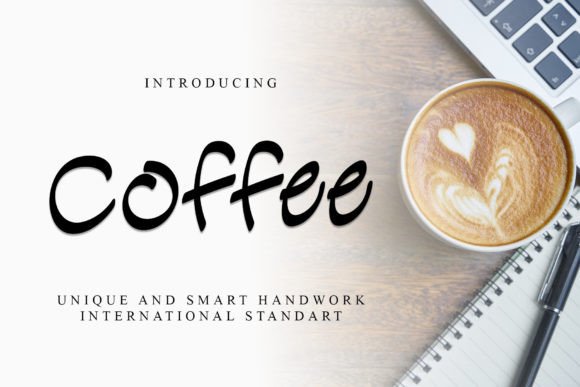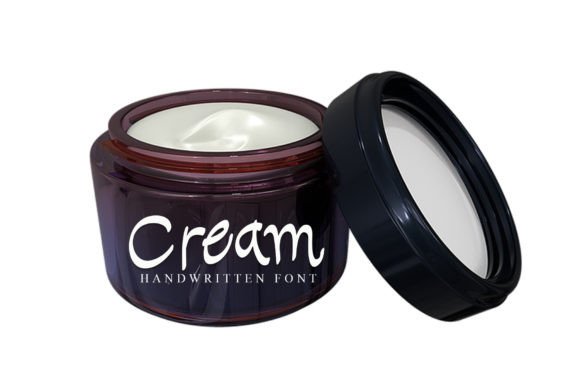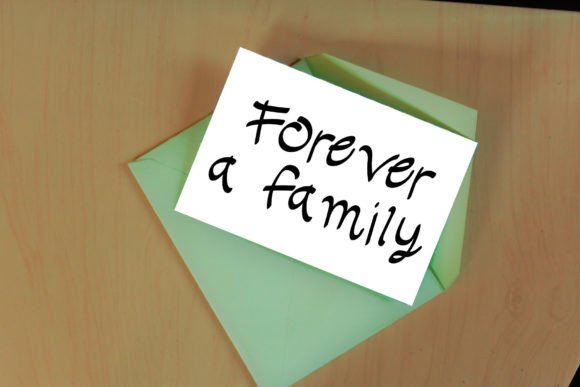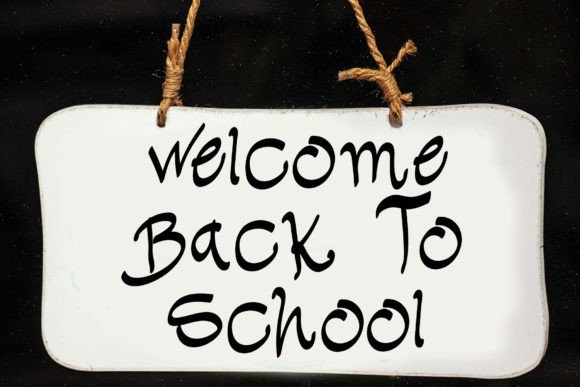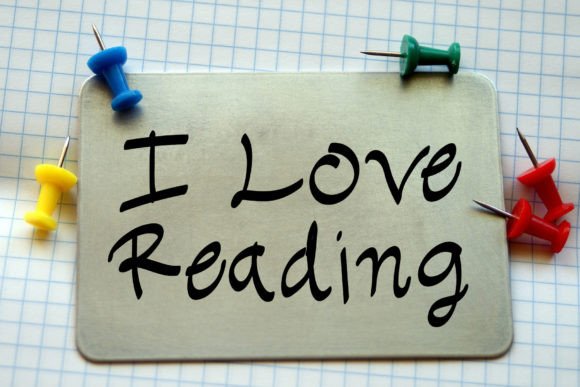
Coffee Font
Coffee: An Elegant Handcrafted Script Font with a Natural Touch
Looking to add warmth and charm to your next design? Coffee is an elegant handcrafted script font designed to bring personality and sophistication to any creative project. With its graceful curves and realistic handwritten flow, this font captures the essence of handwritten elegance while maintaining professional polish.
Coffee’s organic style offers the perfect balance between casual and refined—making it ideal for both personal and commercial use.
A Font That Feels Real and Warm
Every character in Coffee was crafted with care to resemble authentic handwriting. This gives your text a natural rhythm and human touch that sterile fonts simply can’t deliver. Whether you’re creating invitations, website banners, or branded content, this elegant handcrafted script font adds emotion and individuality to every word.
Use Coffee to bring life to:
• Wedding invitations and event materials
• Personal blogs and lifestyle websites
• Office presentations and visual branding
• Posters, flyers, and social media content
• Product packaging and boutique labels
Its smooth, flowing lines adapt well to various formats, from print to digital.
Why Coffee Is a Designer Favorite
Designers love fonts that offer both style and flexibility. Coffee does just that. It’s friendly, readable, and full of charm—making it the perfect option for design projects that need a personal yet elegant touch.
Here’s what sets Coffee apart as an elegant handcrafted script font:
• Clean and legible handwritten style
• Soft curves and consistent spacing
• Stylish enough for formal branding
• Casual enough for DIY designs
• Works beautifully in large headlines and small accents
Coffee adds an approachable tone while still looking polished and professional.
Perfect for Invitations, Branding, and Creative Projects
Coffee is a great choice when you want to combine elegance with authenticity. Whether you’re building a brand identity or crafting a simple greeting card, this font helps your message feel sincere and beautifully styled.
It’s a strong fit for:
• Wedding and birthday party materials
• Branded content for creative businesses
• Stationery and printable designs
• Quotes, journaling, and planners
• Online shops and digital downloads
If you want your text to feel personal, stylish, and real, Coffee is the perfect solution. This elegant handcrafted script font delivers charm and clarity with every stroke.